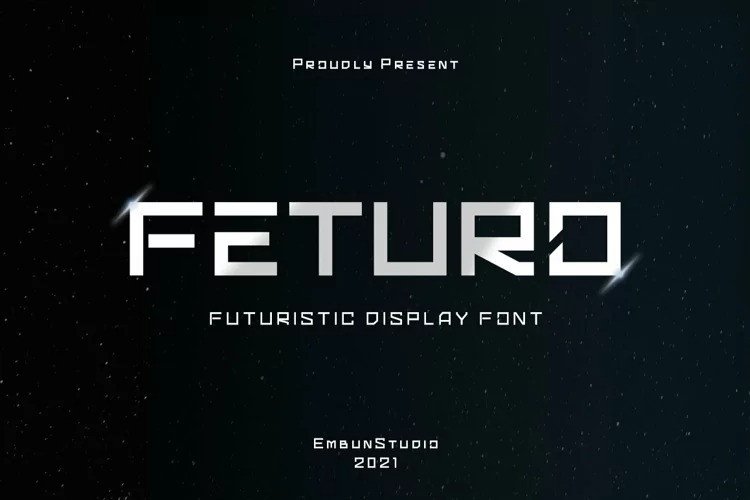
Feturo Font
Feturo is an experimental square font inspired by old Science Fiction Horror movies It includes uppercase letters, numbers and punctuation. This font would be ideal for writing web designs, business cards, or pretty much anything else that requires a unique touch.